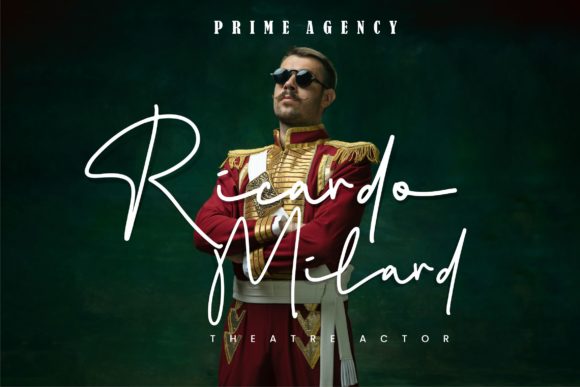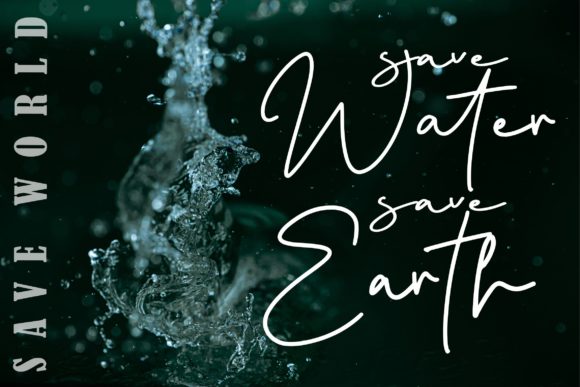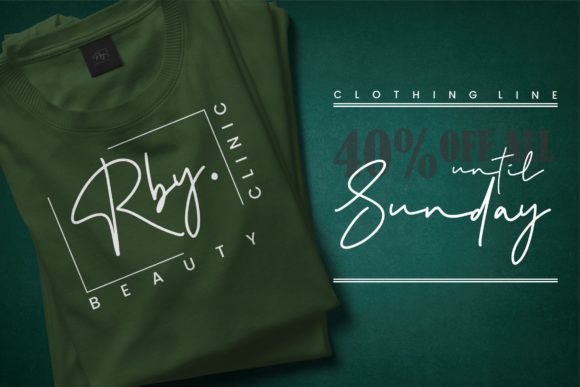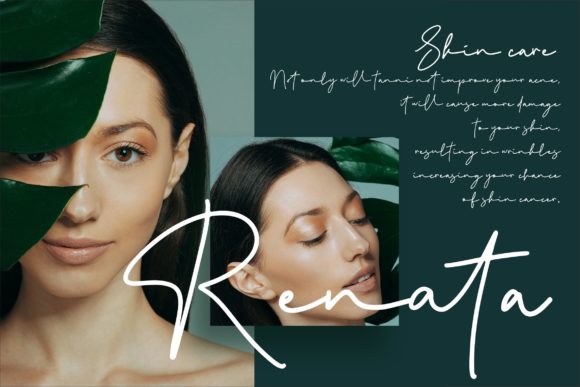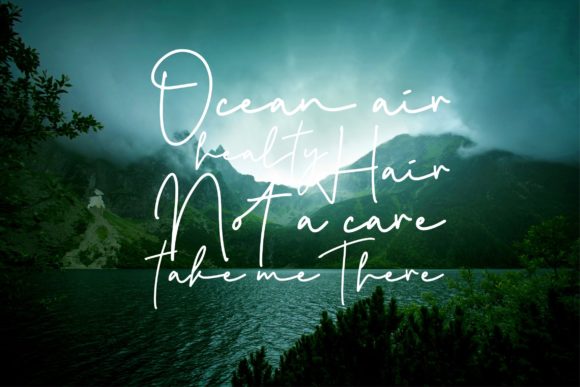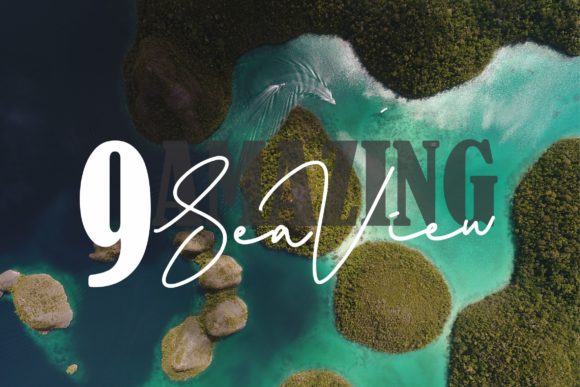
Introduction to Ratinah Font
As a designer, you’ve probably experienced that moment of pure joy when all the elements of a project come together in perfect harmony. The colors, the textures, the typography – everything seems to be saying, ‘Yes, this is it.’ And at the heart of that harmony, often lies a well-chosen font. For those seeking a sophisticated and elegant script font, look no further than the Ratinah Font. Inspired by the timeless classic calligraphy, this font is designed to elevate the beauty of your creative projects.
Whether you’re working on a branding campaign, a website design, or a print material, the Ratinah Font is an invaluable resource. Its balanced and varied design makes it perfect for creating a high-quality visual identity. Plus, with its transparent background, you can easily integrate it into any design without worrying about clutter. And the best part? The Ratinah Font is available for free download, making it an accessible design resource for designers of all levels.
Key Features of Ratinah Font
- High-quality design resource for creative projects, offering a unique and elegant aesthetic.
- Features a transparent background, allowing for seamless integration with any design element.
- Includes a comprehensive character set, covering a wide range of languages and alphabets.
- Is a highly versatile font, suitable for use in a variety of creative projects, including logos, branding, and typography-based designs.
Honest Review: Ratinah Font
I recently stumbled upon the Ratinah Font, and I must say it’s been a great addition to my design resource library. As a designer, I’m always on the lookout for high-quality fonts that can elevate my creative projects.
- What works well: ✨ The Ratinah Font has a unique, modern feel to it, making it perfect for projects that require a touch of sophistication. The font is also highly legible, even at small sizes.
While the Ratinah Font is a solid choice, I did encounter a few limitations. ⚠️ The font selection is limited, which may not be ideal for designers who require a wide range of fonts for their projects.
Overall, I’m impressed with the Ratinah Font. It’s a great addition to any design resource library, and its high-quality features make it a worthwhile download. If you’re looking for a unique, modern font for your creative project, I’d definitely recommend giving it a try.
To get the most out of Ratinah Font, experiment with different font sizes, colors, and combinations. The font’s versatility makes it suitable for a wide range of design projects, from logos to marketing materials.
Ratinah Font is commonly used in creative projects such as logo designs, business cards, and social media graphics. Its high quality and transparent background feature make it an ideal choice for professional designs.